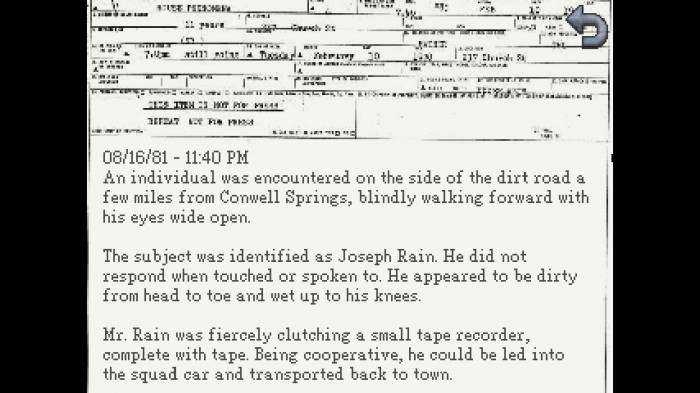
• Recreation of the serif font used for newspaper excerpts and police reports in Kathy Rain and Kathy Rain: Director’s Cut. Almost all glyphs are taken straight from the game with all the accompanying spacing issues (you can probably instantly see it in the -ab- pair), BUT:
• uppercase Q, V, X, and Z are mine, since I couldn’t find them in the game;
• some punctuation, as well as ampersand are taken from the main font, since I couldn’t find any use of those glyphs within this font in the game.